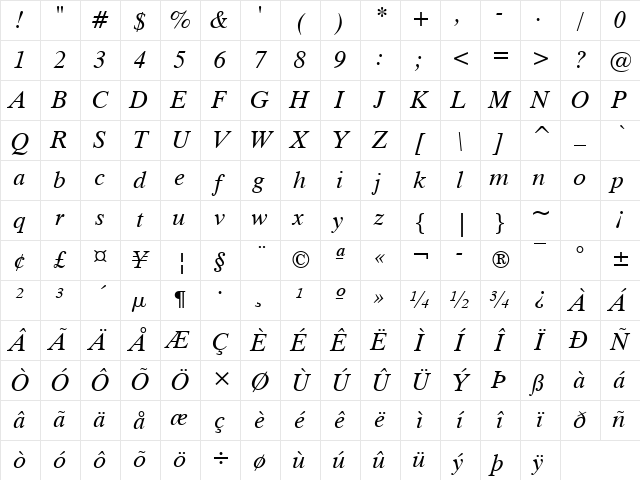
Dutch801 Rm Win95BT Italic
Design Context for Dutch801 Rm Win95BT
Dutch801 Rm Win95BT is a composed and adaptable typeface that performs quietly and consistently across a wide range of design contexts. The slanted form adds forward momentum and visual energy.
Pro Tip: Use Dutch801 Rm Win95BT for emphasis, pull quotes, and subheadings where its slanted energy can add rhythm to the layout.